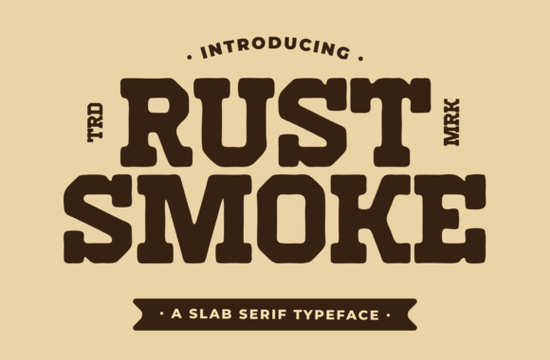
Rust Smoke Font is a standout choice for anyone looking to add a touch of old-world charm to their design projects. This bold vintage slab serif typeface draws inspiration from classic western signage, rustic smokehouses, and handcrafted Americana lettering. Its strong letterforms, chunky serifs, and rugged character make it perfect for creating a retro feel without sacrificing readability. Whether you're working on branding, logos, packaging, or posters, Rust Smoke brings a timeless handcrafted appeal that feels authentic and inviting.
Designers and crafters who want to capture the essence of a bygone era will find Rust Smoke to be an invaluable tool. The font’s distinctive western personality makes it ideal for headlines, labels, and visual identities that need to stand out. It works especially well for coffee shops, vintage-themed projects, and any design that benefits from a sense of history and authenticity. Its versatility allows it to shine in both digital and print formats, making it a go-to option for small businesses and creative hobbyists alike.
If you’re looking for a font that combines strength with nostalgia, Rust Smoke is a great fit. It balances boldness with clarity, ensuring that your designs remain legible while still making a strong visual statement. The font’s unique character makes it easy to distinguish from other slab serif typefaces, giving your work a more personalized and crafted look. This makes it particularly useful for print-on-demand sellers who want to offer products with a distinct aesthetic.
What Makes Rust Smoke Unique?
Rust Smoke stands out due to its blend of rustic charm and modern usability. Unlike many fonts that lean too heavily into one style, this typeface manages to maintain a balance between boldness and readability. The chunky serifs and thick strokes give it a strong presence, while the overall structure ensures it doesn’t become overwhelming in text-heavy designs. This makes it suitable for a wide range of applications, from large headlines to smaller details like product labels or signage.
Another key feature of Rust Smoke is its ability to evoke a specific mood. The font’s design elements are reminiscent of old saloons and roadside diners, which can help set the tone for any project. For example, a coffee shop using this font might immediately convey a sense of warmth and tradition, appealing to customers who appreciate a more authentic experience. Similarly, a vintage-themed poster could use Rust Smoke to create a nostalgic atmosphere that resonates with its audience.
Best Uses for Rust Smoke
There are several scenarios where Rust Smoke shines. One of the most common uses is in branding, especially for businesses that want to communicate a sense of history or craftsmanship. This includes restaurants, boutique stores, and artisanal product lines. The font’s rugged appearance can help reinforce the idea of quality and authenticity, which is crucial for building customer trust.
Rust Smoke is also a popular choice for packaging design. Whether you're creating labels for handmade soaps, custom candles, or specialty food items, this font adds a visually striking element that complements the product’s theme. Its bold nature makes it ideal for eye-catching product names or taglines, ensuring that your brand stands out on the shelf.
For designers working on posters or banners, Rust Smoke offers a way to create attention-grabbing visuals without overcomplicating the layout. Its strong character makes it perfect for headlines, while its readability ensures that the message remains clear. This makes it a reliable option for event promotions, seasonal campaigns, or any design that needs to communicate quickly and effectively.
- Use it for headings or focal points to highlight its bold character.
- Pair it with simpler fonts for contrast in multi-font designs.